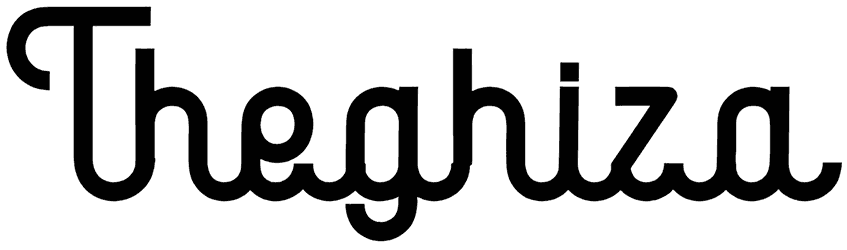
Theghiza Font
You may give your digital creations a touch of class by using Theghiza, an elegant, swish, swashy font. Use this chic, attached font to draw attention to your next commercial, invitation card, or decoration.
Despite missing some numerals, if you want to make a lasting impression on your customers, choose this curly, retro font. Download it from RB, which has free, elegant fonts for all your design needs, and see what a difference it makes in your text.